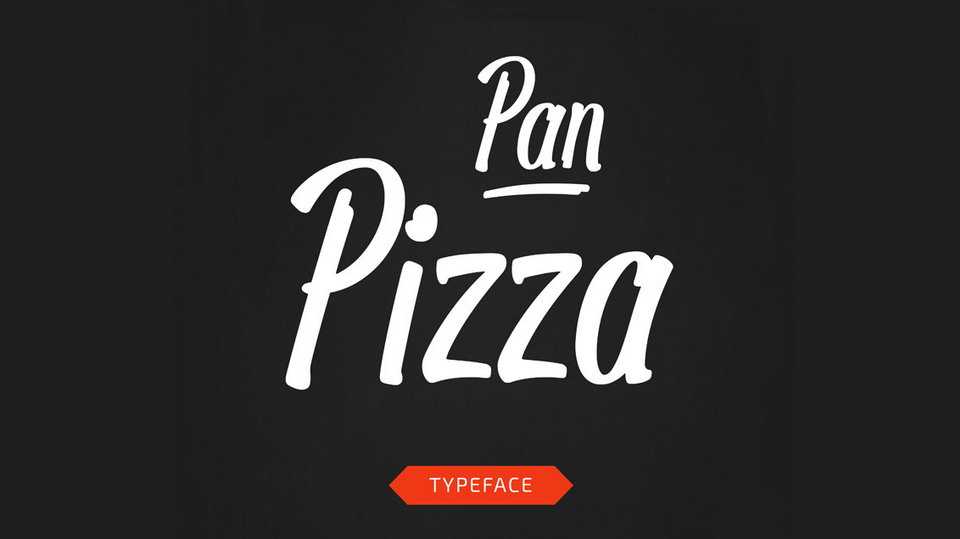
Download Pan Pizza font, a cool spontaniously looking brush typeface. It’s intended to be used in bars, diners, fast food restaurants and the like.
Designer: Marc Lohner